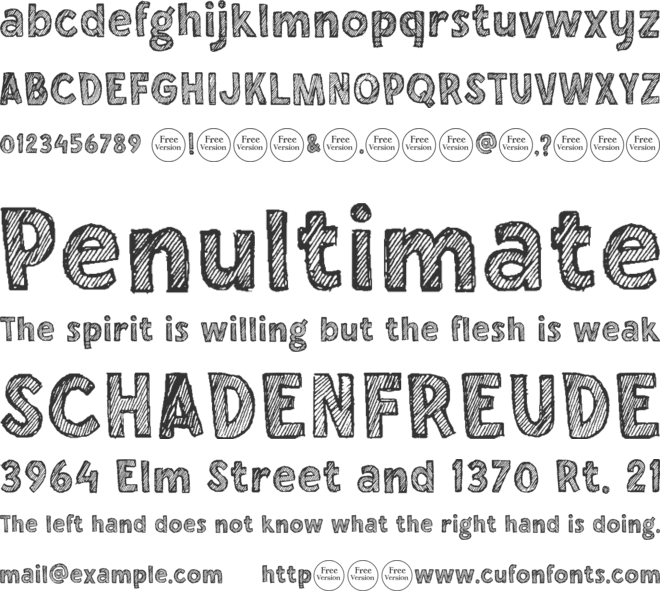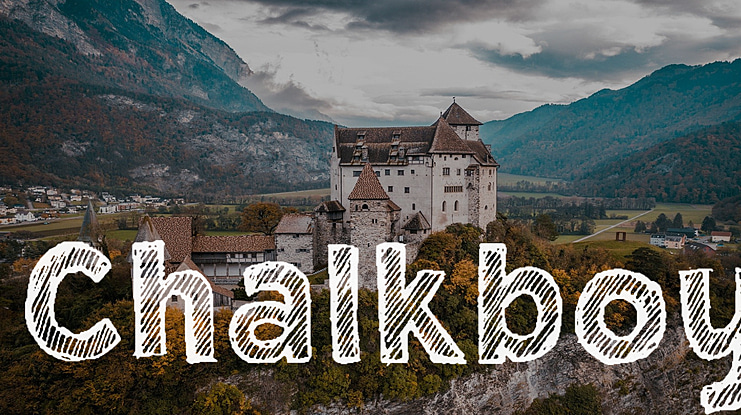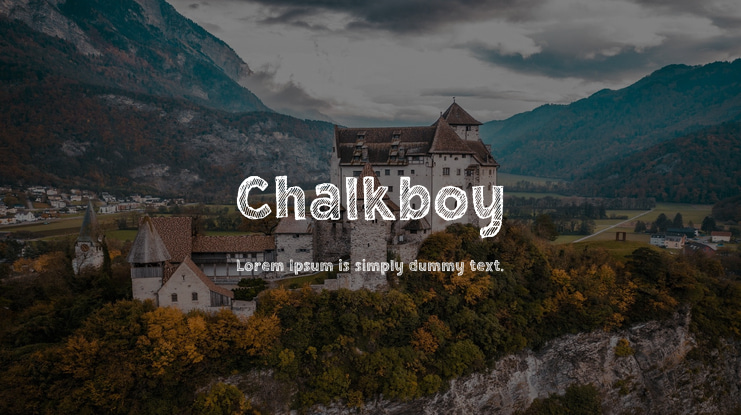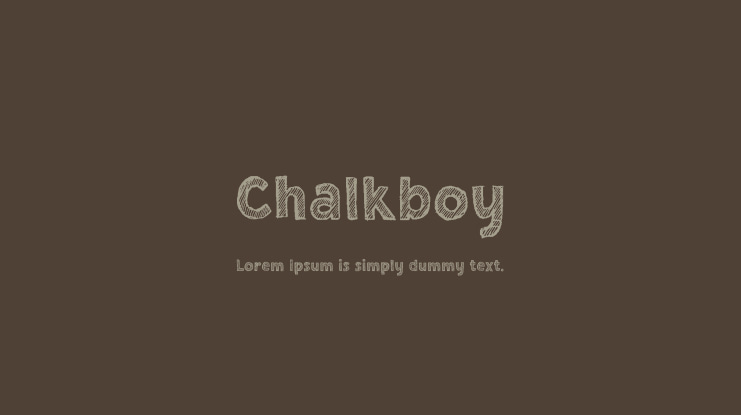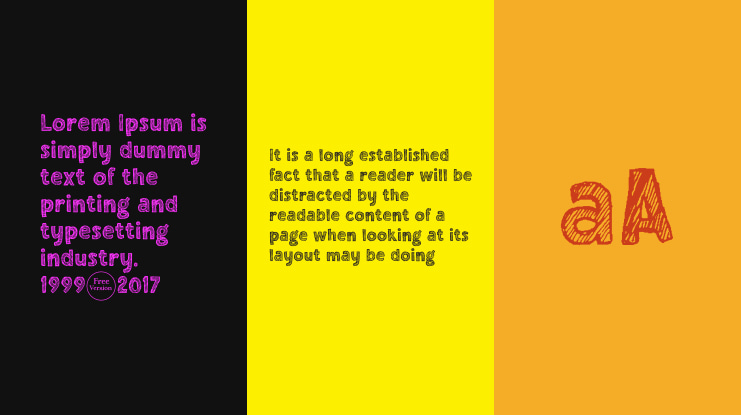
Chalkboy Font
Chalkboy is a fun and casual display font suited for kids , playground, or school theme. Whether you’re using it for crafting, digital designing, presentations or greeting cards making, it’s perfect!